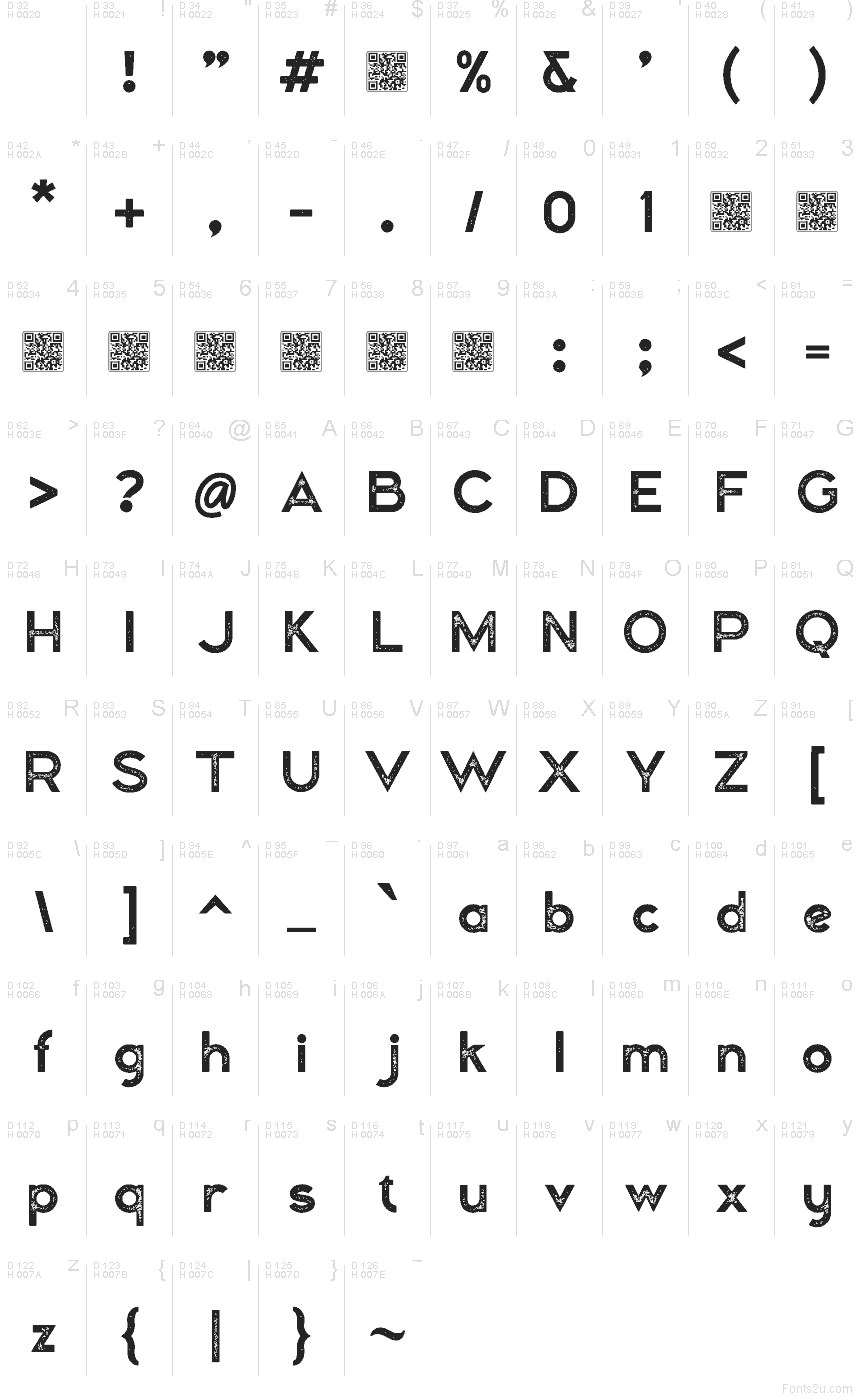
Gaveto font by Absonstype Studio is a free eroded display typeface with a bold, distressed personality. Its chunky, rounded forms are chewed away with chalky specks and rough patches, like ink stamped on worn cardboard or a poster that’s survived a few rainy nights. Despite the gritty texture, the letters stay cleanly shaped and easy to read, giving you impact and attitude without losing clarity.
Using Gaveto, you can add instant edge to gig posters, streetwear branding, zines, skate graphics, bold social posts, and grunge-inspired packaging. The irregular erosion creates a built‑in texture, so your headlines feel tactile even on a flat screen. This free font works best at larger sizes; pair it with a simple, neutral sans serif for body text to keep the focus on Gaveto’s raw, weathered charm.